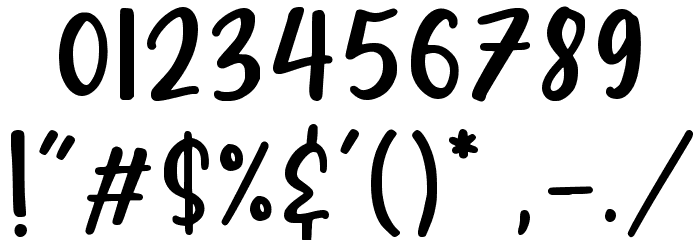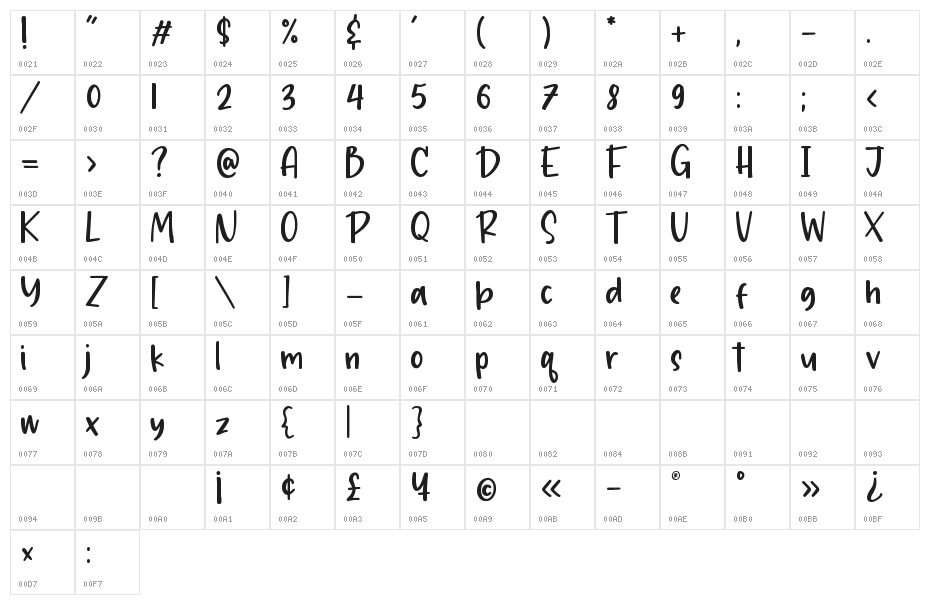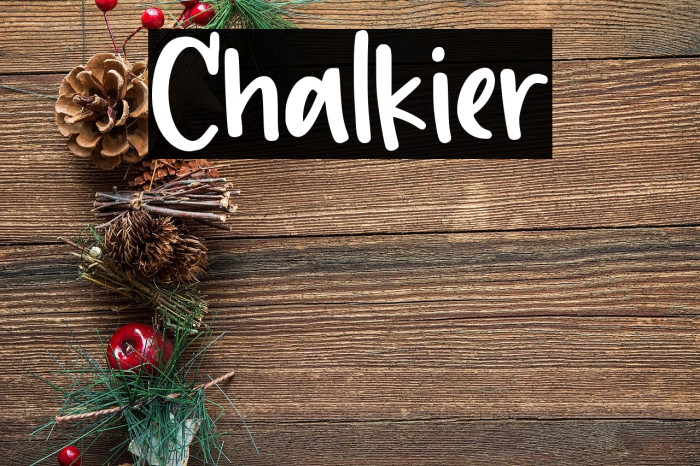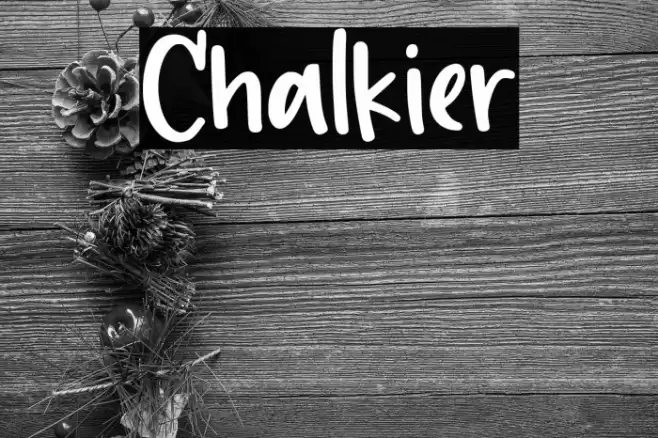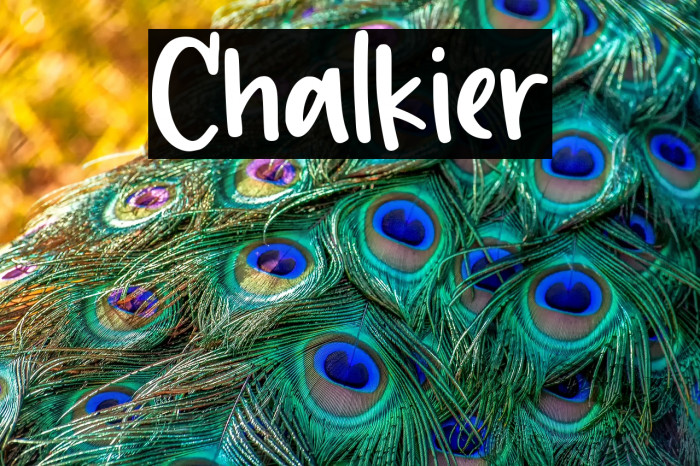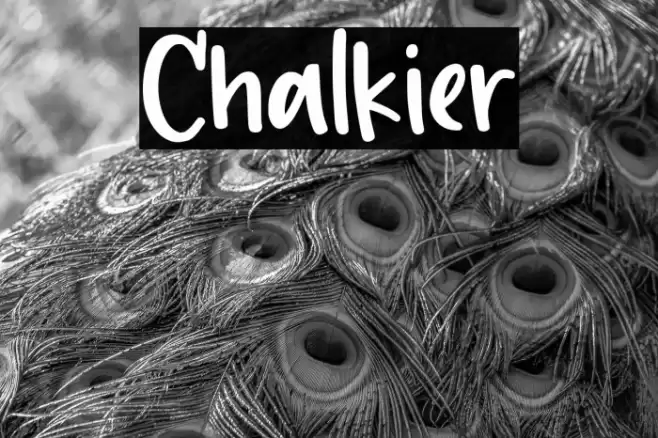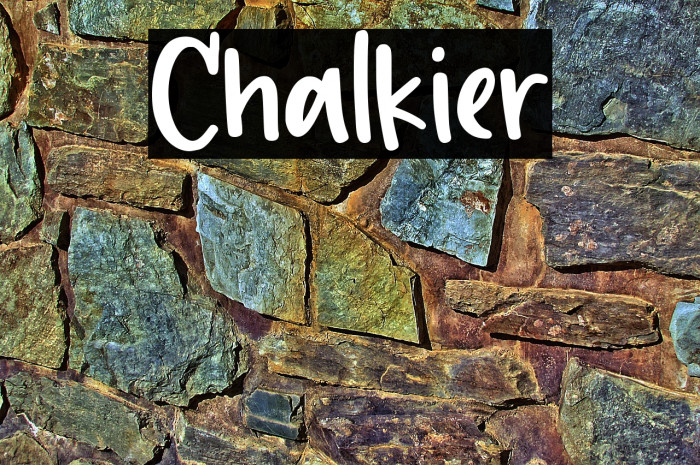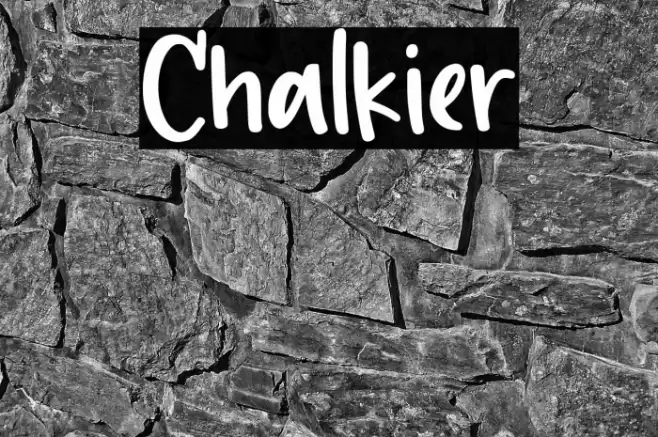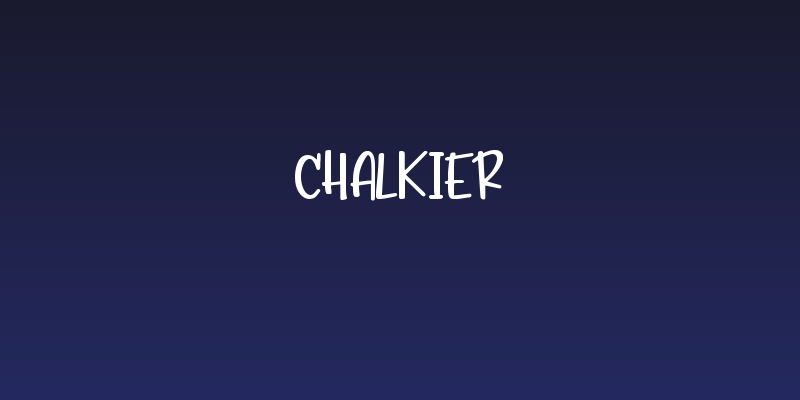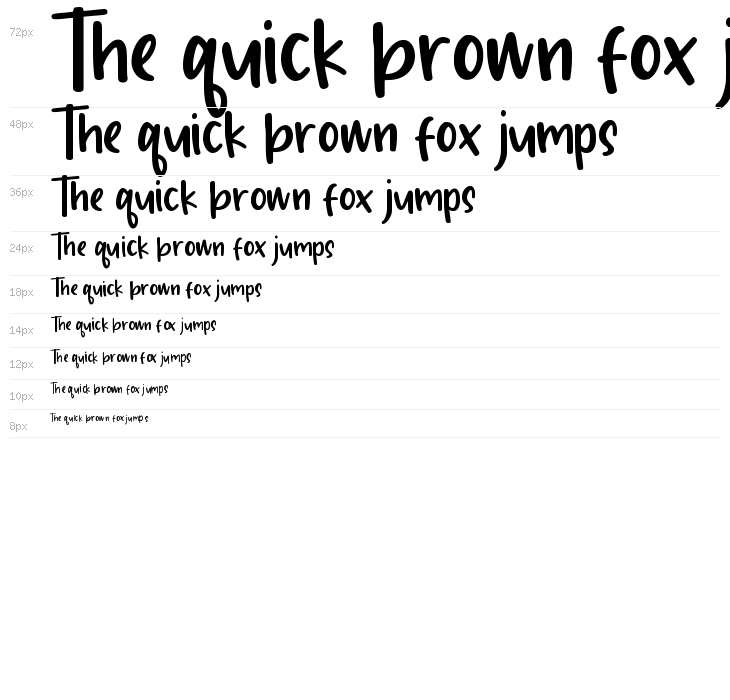
Chalkier Font
Chalkier Description
This playful and informal font features a hand-drawn aesthetic reminiscent of chalk writing. The characters are bold and rounded, with a slightly uneven baseline that adds to its casual charm. The uppercase and lowercase letters maintain a consistent style, with smooth curves and a friendly appearance. Numbers and special characters are equally expressive, making the font versatile for various creative projects. Its overall look is approachable and fun, ideal for designs that aim to convey warmth and personality.
| Proposed Projects | Ideal for school projects, children's books, playful branding, and casual invitations. |